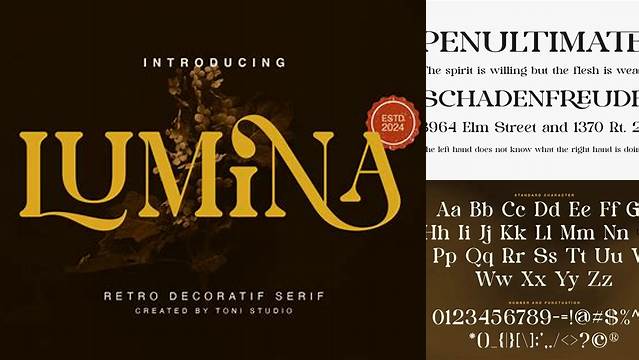
Lumina Free Font: Your Ultimate Guide To A Modern Typeface
Introduction to Lumina Free Font
When it comes to free fonts, Lumina stands out as a versatile and elegant choice for designers and creatives alike. Lumina Free Font has quickly become a favorite among those looking to add a touch of sophistication and modernity to their projects. But what makes Lumina so special? Why should you consider using it in your next design endeavor? Well, let's dive in and explore the many facets of this fantastic typeface. In this comprehensive guide, we'll delve into the details of what makes Lumina unique, its design characteristics, ideal use cases, and how to download and use it effectively. Whether you're a seasoned designer or just starting out, understanding the nuances of Lumina will undoubtedly enhance your typographic toolkit. First and foremost, the versatility of Lumina Free Font is one of its key selling points. It’s not just another generic font; it’s a meticulously crafted typeface that exudes elegance and modernity. The clean lines and balanced letterforms make it suitable for a wide range of applications, from branding and logos to web design and print materials. This adaptability is crucial because, in the design world, you need a font that can wear many hats. You want a typeface that looks as good on a business card as it does on a website header. Lumina achieves this with grace, making it an invaluable asset for any project requiring a touch of class. Moreover, the aesthetic appeal of Lumina lies in its simplicity and readability. It’s designed to be easy on the eyes, ensuring that your message is conveyed clearly and effectively. In a world where visual communication is paramount, readability is non-negotiable. A font might look beautiful, but if it's hard to read, it's not serving its purpose. Lumina strikes the perfect balance between aesthetic charm and functional clarity. This makes it an excellent choice for both body text and headlines, offering a seamless reading experience for your audience. In addition to its versatility and readability, Lumina’s free status makes it incredibly accessible. High-quality fonts can often come with hefty price tags, which can be a barrier for many designers, especially those who are just starting out or working on a tight budget. Lumina Free Font democratizes design by providing a top-notch typeface without the financial burden. This means that anyone, regardless of their budget, can create professional-looking designs. This accessibility is not just about saving money; it’s about empowering creativity and innovation. By removing financial constraints, Lumina allows designers to focus on their craft and bring their visions to life without compromise. Furthermore, the design characteristics of Lumina are worth noting. The font features a contemporary sans-serif style with a touch of elegance, making it a perfect fit for modern and minimalist designs. The letterforms are carefully crafted, with subtle details that add to its overall sophistication. The clean, geometric shapes give it a polished and professional look, while the slight variations in stroke weight add visual interest and personality. This attention to detail is what sets Lumina apart from many other free fonts. It’s clear that a lot of thought and care went into its creation, resulting in a typeface that feels both refined and approachable. The spacing between letters and words is also meticulously considered, ensuring optimal readability and visual harmony. This is crucial because even the most beautiful font can fall flat if the spacing is off. Lumina’s well-balanced spacing contributes to its overall legibility and aesthetic appeal, making it a pleasure to read and work with.
Design Characteristics of Lumina
Let's dive deeper into the design characteristics of Lumina Free Font. Understanding these details will help you appreciate its nuances and use it effectively in your projects. When we talk about design characteristics, we're looking at the specific elements that make Lumina unique – its structure, style, and overall aesthetic. These characteristics are what determine how the font looks and feels, and how well it performs in different design contexts. Guys, when you’re choosing a font, it’s not just about picking something that looks nice at first glance. You need to understand the nitty-gritty details to make sure it aligns with your project's goals and target audience. So, let’s break down what makes Lumina tick. First, Lumina is a sans-serif typeface, which means it lacks the small decorative strokes (serifs) that you see in fonts like Times New Roman. Sans-serif fonts are generally considered to be more modern and clean, making them a popular choice for contemporary designs. Lumina takes this a step further with its minimalist approach, featuring clean lines and a geometric structure. This gives it a sleek, uncluttered appearance that is both professional and approachable. The absence of serifs also contributes to its readability, especially in digital formats, where small details can sometimes get lost. The letterforms in Lumina are carefully crafted, with a focus on balance and harmony. Each letter is designed to complement the others, creating a cohesive and visually pleasing overall texture. The proportions are well-balanced, ensuring that the font doesn’t look too wide or too narrow. This is crucial for readability and aesthetic appeal. Imagine if a font had letters that were disproportionately sized – it would look jarring and be difficult to read. Lumina avoids this pitfall by maintaining consistent proportions throughout its character set. Another important aspect of Lumina's design is its stroke weight. The stroke weight refers to the thickness of the lines that make up the letters. Lumina features a moderate stroke weight, which means the lines are neither too thin nor too thick. This contributes to its versatility, making it suitable for both headlines and body text. A font with overly thin strokes might look elegant but could be difficult to read in smaller sizes, while a font with overly thick strokes might appear heavy and overwhelming. Lumina strikes a perfect balance, ensuring that it remains legible and visually appealing in a variety of sizes and contexts. The spacing between letters and words, also known as kerning and tracking, is another critical design characteristic. Lumina has been meticulously kerned and tracked to ensure optimal readability and visual harmony. The spacing is neither too tight, which would make the letters feel cramped, nor too loose, which would make them feel disconnected. This attention to detail is what sets Lumina apart from many other free fonts. It’s clear that the designers have put a lot of thought into ensuring that the font looks its best in any setting. Furthermore, Lumina often includes a variety of weights and styles, such as light, regular, bold, and italic. This expands its versatility, allowing you to create visual hierarchy and add emphasis to your text. For example, you might use the bold weight for headlines and the regular weight for body text. The italic style can be used to highlight specific words or phrases. Having these options at your disposal gives you greater control over your typography and allows you to create more dynamic and engaging designs. In addition to the standard character set, Lumina may also include ligatures, alternate characters, and other stylistic features. Ligatures are special characters that combine two or more letters into a single glyph, often used to improve readability and visual appeal. Alternate characters provide different versions of the same letter, allowing you to add a touch of personality to your designs. These extra features can elevate your typography and make your work stand out. Overall, the design characteristics of Lumina Free Font make it a standout choice for any project that requires a modern, clean, and elegant typeface. Its sans-serif structure, balanced letterforms, moderate stroke weight, and meticulous spacing all contribute to its versatility and readability. Whether you're designing a logo, a website, or a print brochure, Lumina is a font that you can rely on to deliver professional results.
Ideal Use Cases for Lumina
Okay, so you know about Lumina's design and its characteristics, but where does it really shine? What are the ideal use cases for Lumina Free Font? Understanding this will help you maximize its potential and ensure it's the right fit for your projects. Different fonts have different strengths, and Lumina is no exception. It's not a one-size-fits-all solution, but when used in the right context, it can elevate your designs and make them truly stand out. Guys, think of it like choosing the right tool for the job. You wouldn't use a hammer to screw in a nail, right? Similarly, you wouldn't use a whimsical, handwritten font for a corporate report. Let’s explore where Lumina can really make a difference. One of the primary use cases for Lumina is in branding and logo design. Its clean, modern aesthetic makes it an excellent choice for businesses that want to project a professional and sophisticated image. Whether you're creating a logo for a tech startup, a fashion brand, or a consulting firm, Lumina can help you convey trust, reliability, and innovation. The font's legibility ensures that your brand name is easily readable, even in small sizes, which is crucial for logo design. A logo is often the first point of contact between a brand and its audience, so it needs to make a strong and positive impression. Lumina's elegant simplicity helps you achieve this, making it a valuable asset in your branding toolkit. In the realm of web design, Lumina is a fantastic option for both headings and body text. Its readability makes it easy on the eyes, ensuring that visitors to your website can comfortably read your content. In the digital world, readability is paramount. If your website is hard to read, people will simply leave. Lumina's clean lines and balanced letterforms contribute to a seamless reading experience, encouraging visitors to engage with your content. Moreover, its modern aesthetic aligns well with contemporary web design trends, helping you create a website that looks fresh and up-to-date. Whether you're designing a blog, an e-commerce site, or a portfolio, Lumina can help you create a visually appealing and user-friendly online experience. Moving on to print materials, Lumina excels in a variety of applications, including brochures, flyers, posters, and business cards. Its versatility allows it to adapt to different design styles and formats, making it a reliable choice for your print projects. A well-designed brochure can be a powerful marketing tool, but if the typography is off, it can detract from the overall message. Lumina ensures that your text is clear, legible, and visually appealing, helping you create print materials that make a lasting impression. Similarly, for business cards, Lumina's professional aesthetic can help you convey credibility and trustworthiness. A business card is often the first physical representation of your brand that someone will encounter, so it's essential to get it right. Lumina's clean and sophisticated look can help you make a strong and positive first impression. Another area where Lumina shines is in editorial design, such as magazines and books. Its readability and elegant appearance make it a great choice for long-form text, ensuring that readers can comfortably immerse themselves in the content. In editorial design, typography plays a crucial role in creating a cohesive and engaging reading experience. Lumina's balanced letterforms and meticulous spacing contribute to a seamless flow of text, making it a pleasure to read. Whether you're designing a glossy magazine or a literary novel, Lumina can help you create a visually appealing and reader-friendly layout. Furthermore, Lumina's versatility extends to digital publications, such as e-books and online articles. Its legibility on screens makes it an excellent choice for digital content, ensuring that your readers can enjoy your work on any device. In today's digital age, it's essential to choose fonts that perform well across different platforms and screen sizes. Lumina's clean and clear design makes it a reliable choice for digital publications, helping you deliver a polished and professional reading experience. In summary, Lumina Free Font is ideally suited for a wide range of applications, including branding, web design, print materials, editorial design, and digital publications. Its clean, modern aesthetic, combined with its readability and versatility, makes it a valuable asset for any designer or creative professional. By understanding its strengths and using it in the right context, you can unlock its full potential and create stunning visual designs. So, go ahead and give Lumina a try – you might just find your new favorite font!
In conclusion, Lumina Free Font is a fantastic resource for designers and creatives looking to add a touch of modern elegance to their work. We've explored its versatile nature, unique design characteristics, and ideal use cases, making it clear that Lumina is more than just another free font – it's a powerful tool that can elevate your designs. This font offers a blend of simplicity and sophistication that makes it suitable for a wide range of projects, from branding to web design to print materials. Guys, what truly sets Lumina apart is its ability to balance aesthetic appeal with practical functionality. It’s not just about looking pretty; it’s about ensuring that your message is communicated clearly and effectively. This balance is crucial in the world of design, where visual communication is paramount. A font might be visually stunning, but if it sacrifices readability, it ultimately fails to serve its purpose. Lumina excels in this regard, offering both a pleasing aesthetic and excellent legibility. One of the key takeaways from our exploration of Lumina is its versatility. It’s a font that can adapt to different design styles and contexts, making it a valuable asset in any designer's toolkit. Whether you're creating a logo for a tech startup, designing a website for a fashion brand, or crafting a brochure for a corporate event, Lumina can deliver the results you need. This adaptability stems from its clean, sans-serif design, which lends itself well to modern and minimalist aesthetics. The absence of serifs gives it a contemporary feel, while its carefully balanced letterforms ensure readability in a variety of sizes and formats. We also delved into the design characteristics of Lumina, highlighting its minimalist approach, balanced letterforms, and moderate stroke weight. These elements contribute to its overall elegance and readability, making it a pleasure to work with. The attention to detail in its design is evident, from the spacing between letters to the subtle variations in line thickness. These nuances are what set Lumina apart from many other free fonts, giving it a polished and professional look. Furthermore, we discussed the ideal use cases for Lumina, emphasizing its suitability for branding, web design, print materials, and editorial projects. Its clean and modern aesthetic makes it a perfect choice for logos and branding materials, helping businesses project a sophisticated image. In web design, its legibility ensures that visitors can comfortably read your content, while its contemporary style aligns well with current design trends. For print projects, Lumina's versatility allows it to adapt to different formats and styles, ensuring that your brochures, flyers, and business cards make a lasting impression. And in editorial design, its balanced letterforms and meticulous spacing contribute to a seamless reading experience. Finally, we covered the process of downloading and using Lumina, providing a step-by-step guide to help you get started. It's essential to download fonts from reputable sources to avoid malware and ensure that you're using high-quality files. Once you've downloaded and installed Lumina, you can start experimenting with it in your design projects, exploring its different weights and styles to create visual hierarchy and add emphasis to your text. In summary, Lumina Free Font is a gem in the world of free typefaces. Its versatility, elegance, and readability make it a valuable asset for any designer or creative professional. Whether you're working on a branding project, a website design, or a print publication, Lumina can help you achieve professional results. So, why not give it a try? Download Lumina today and experience the difference it can make in your designs. You might just find your new favorite font!